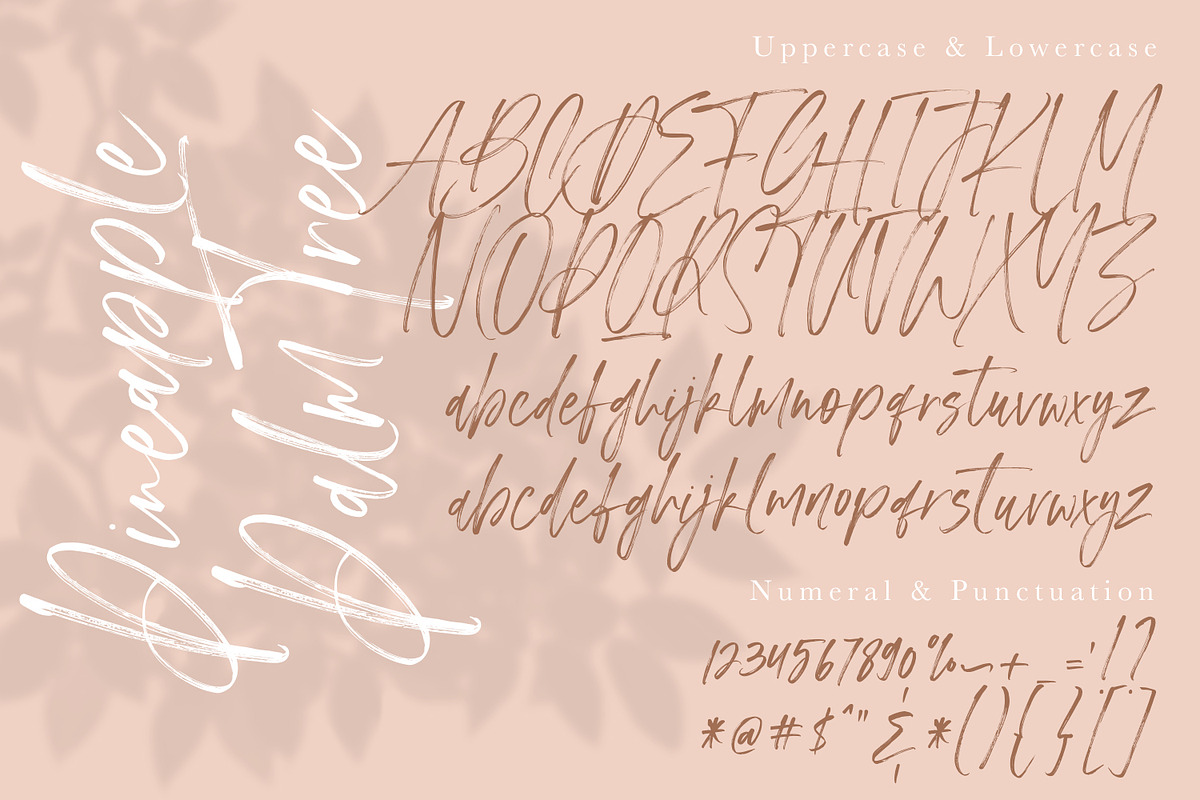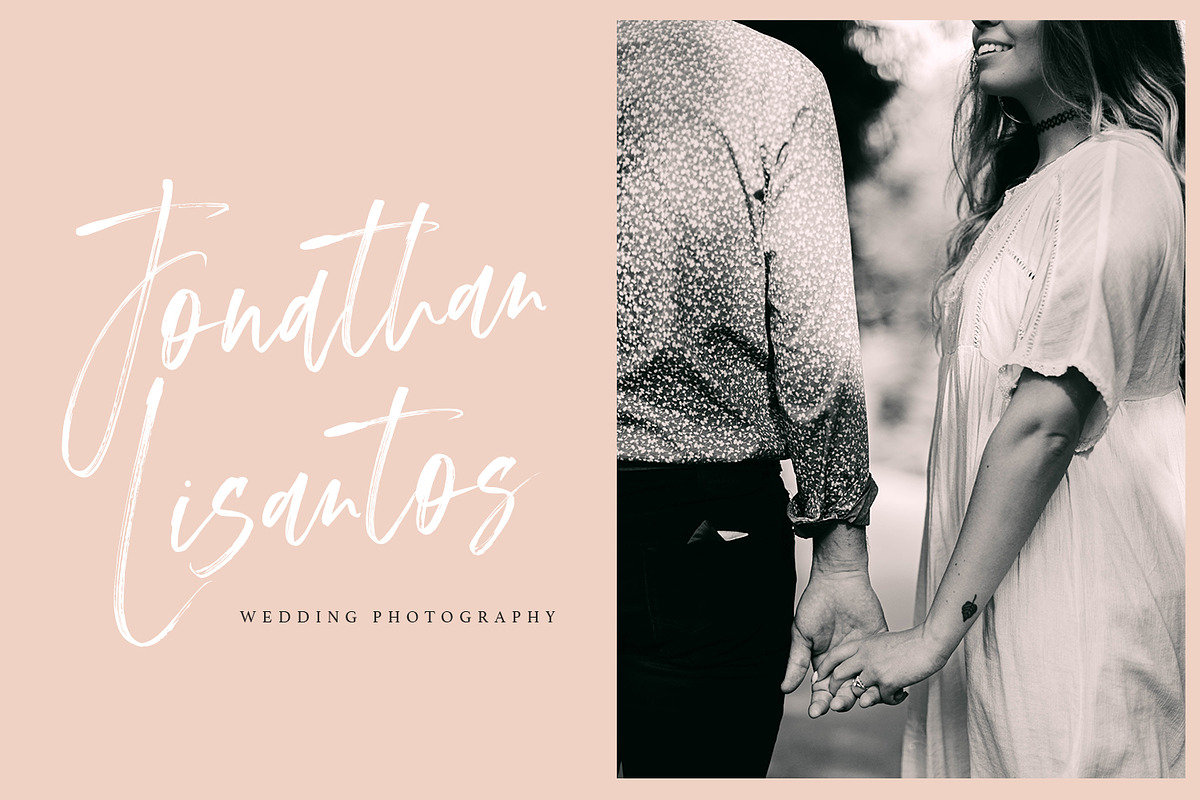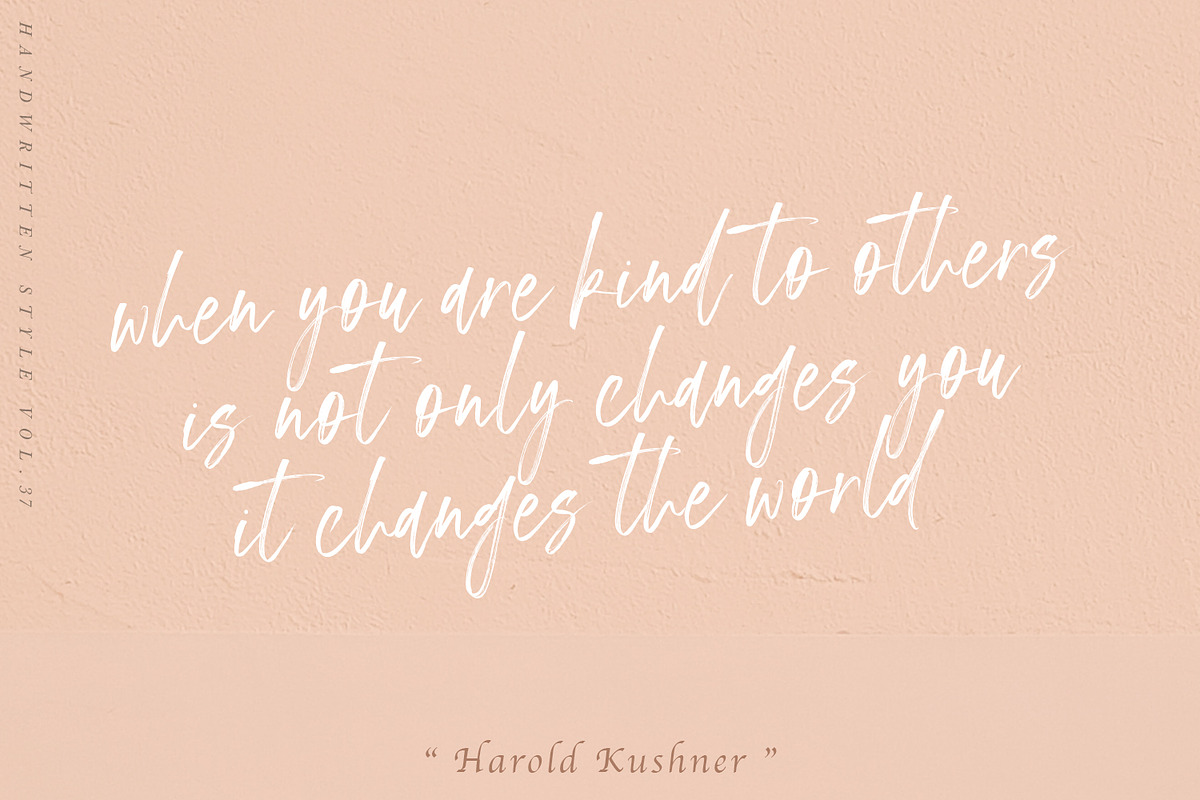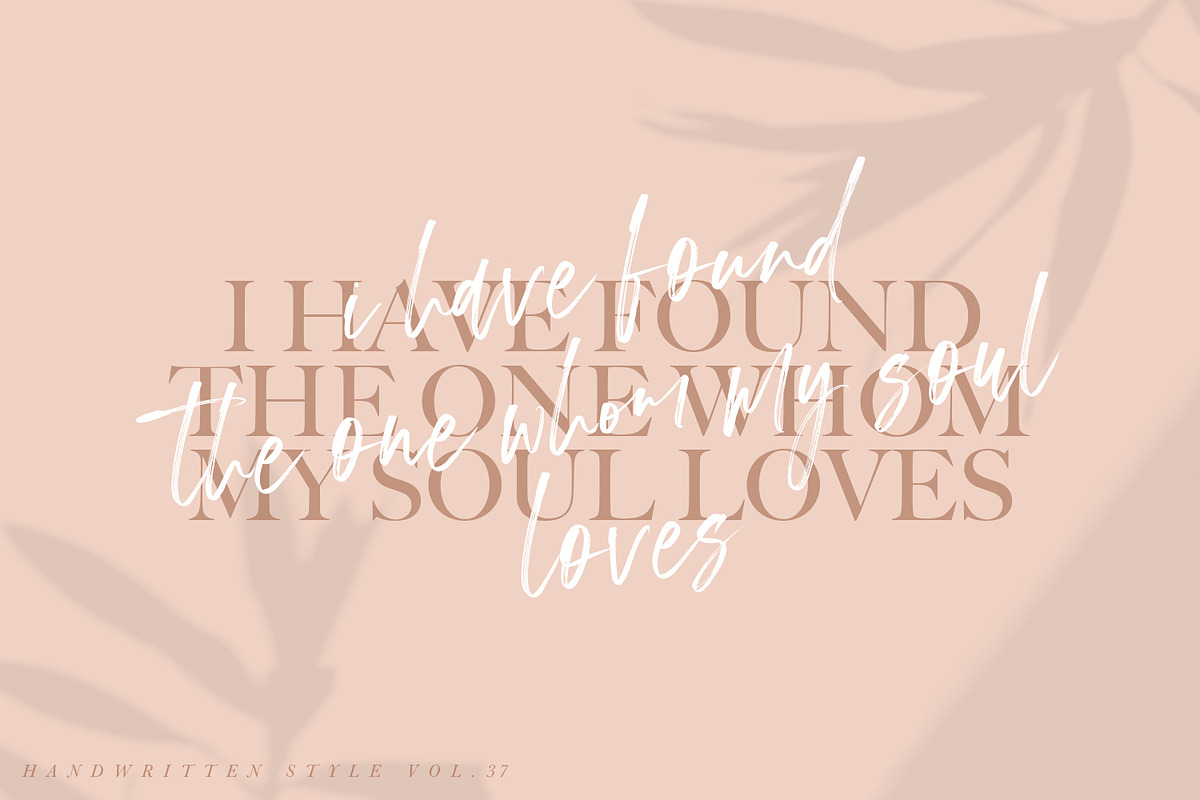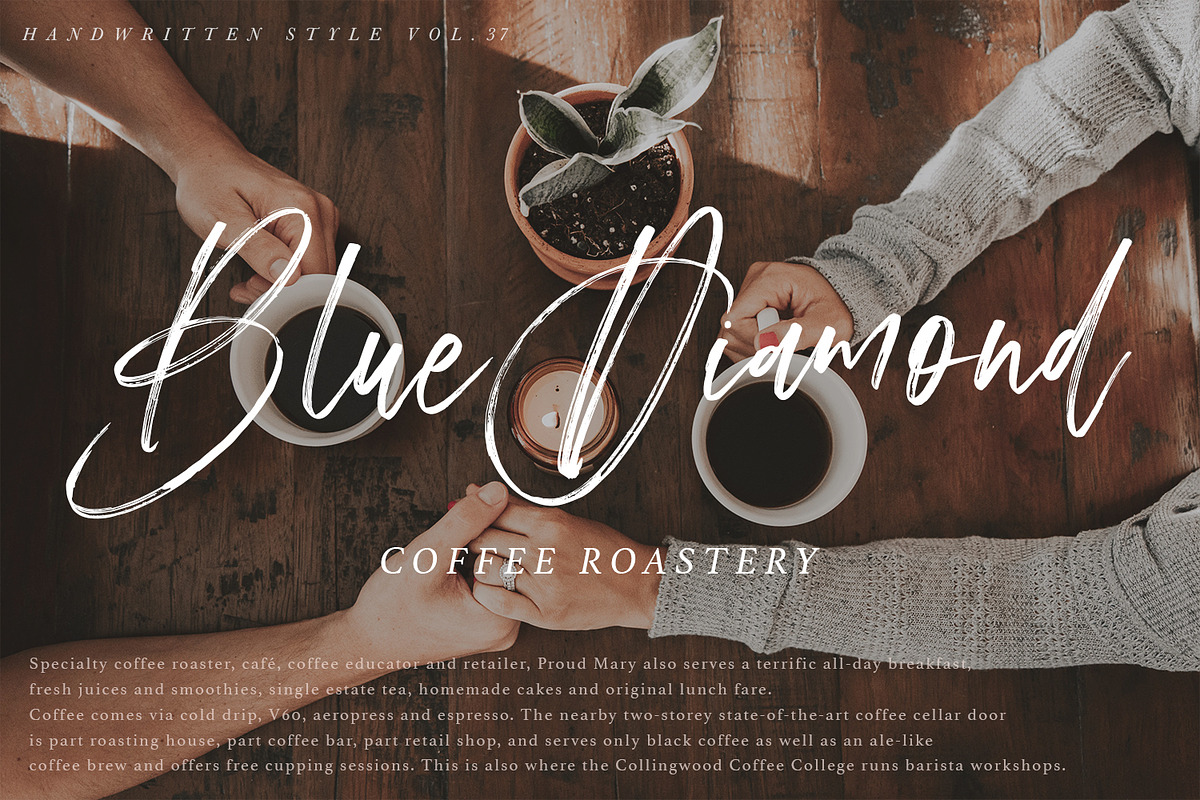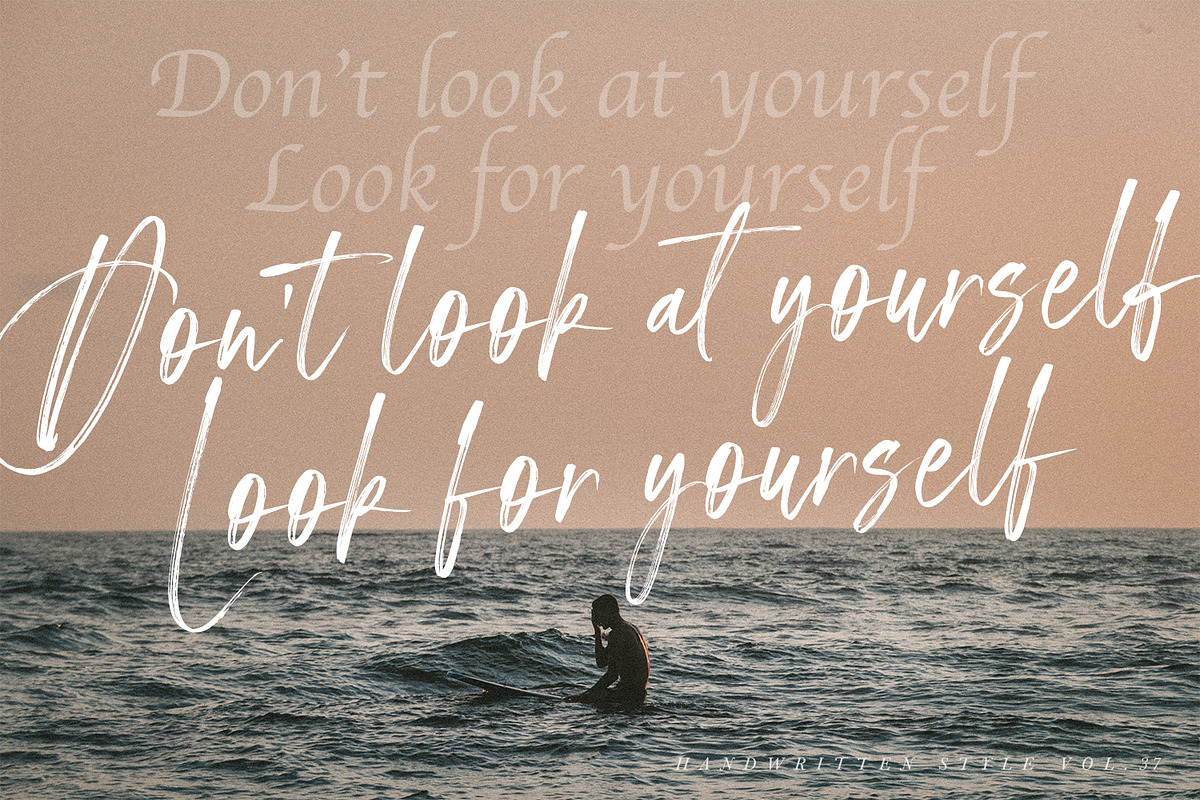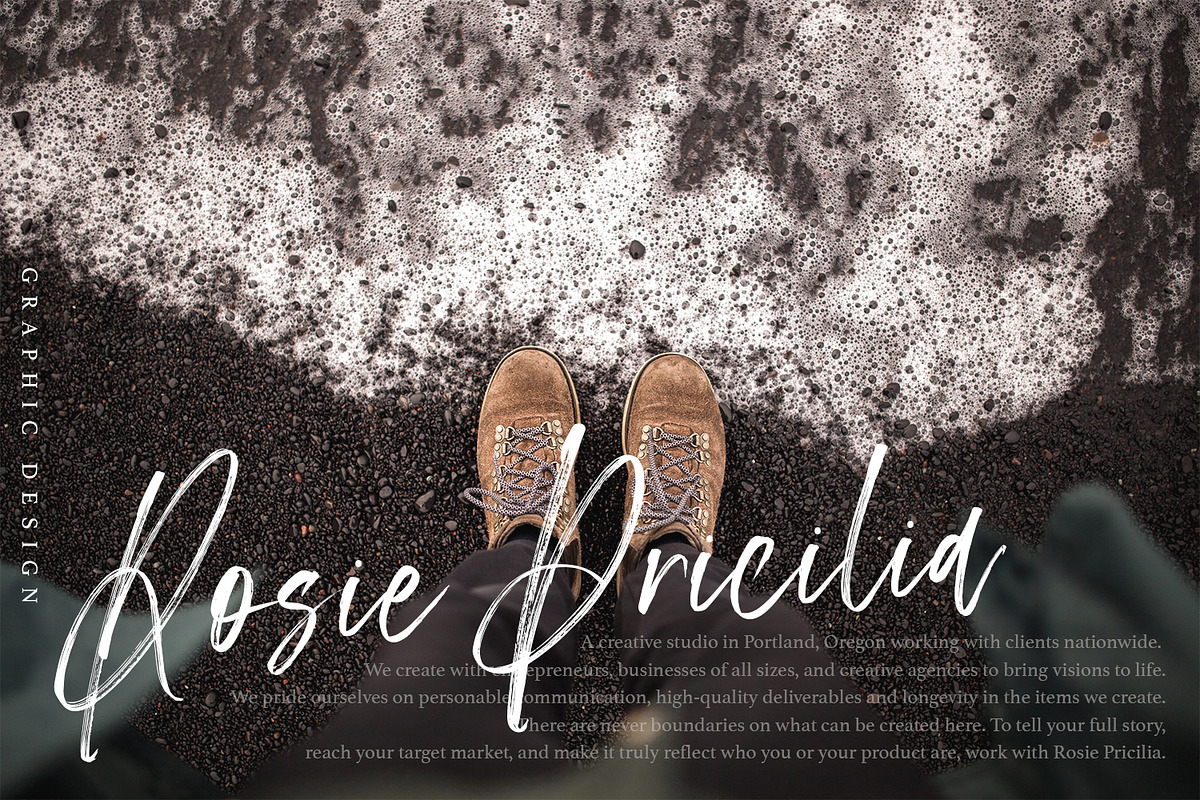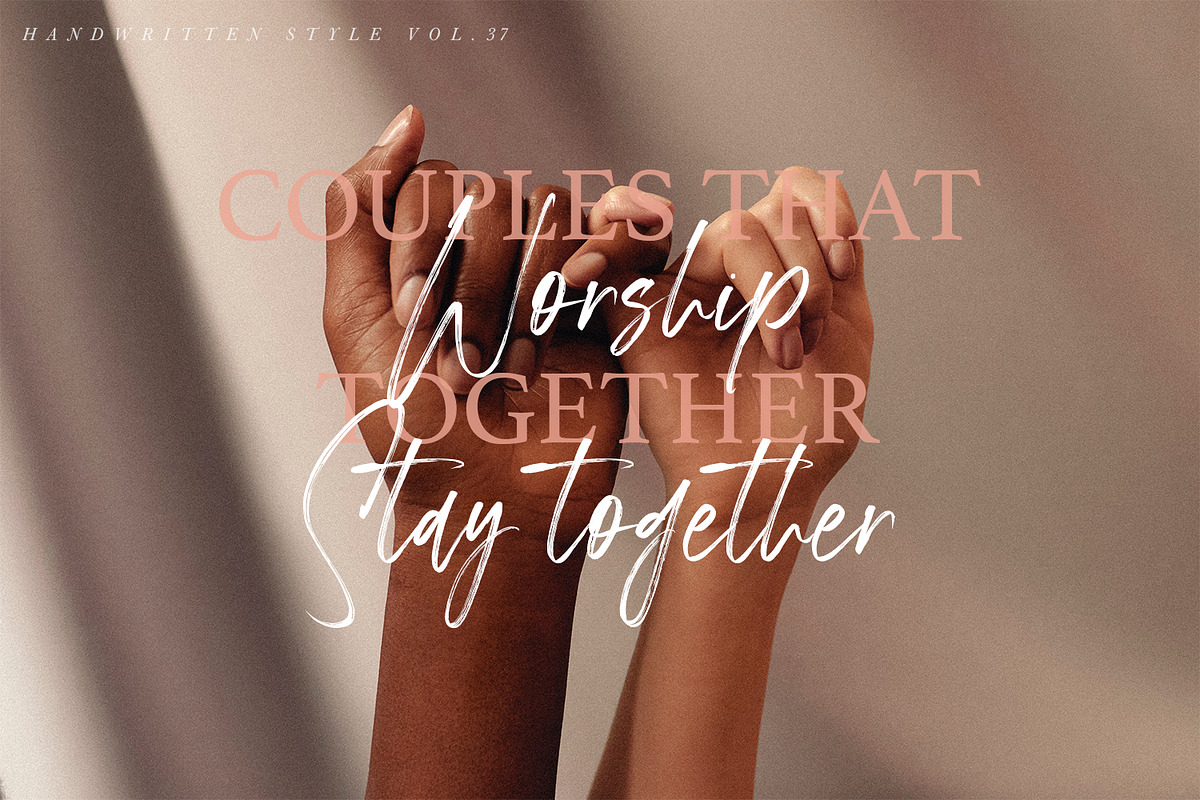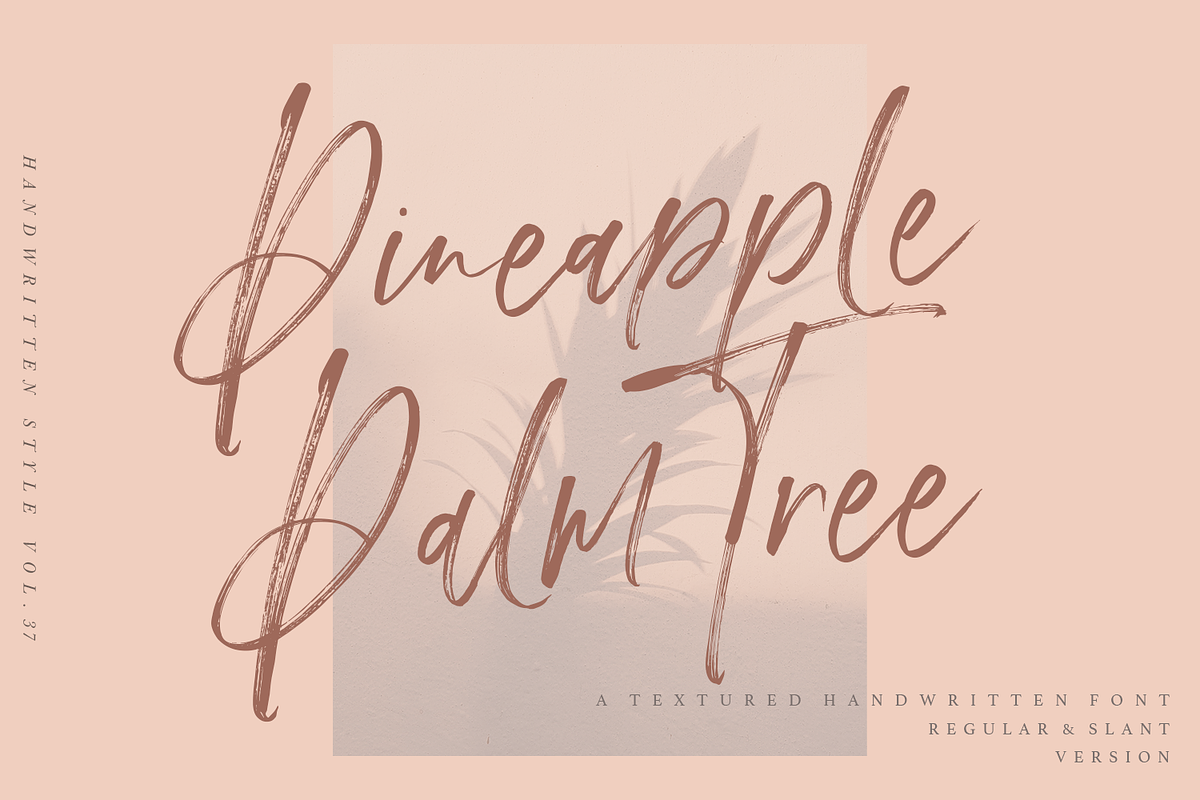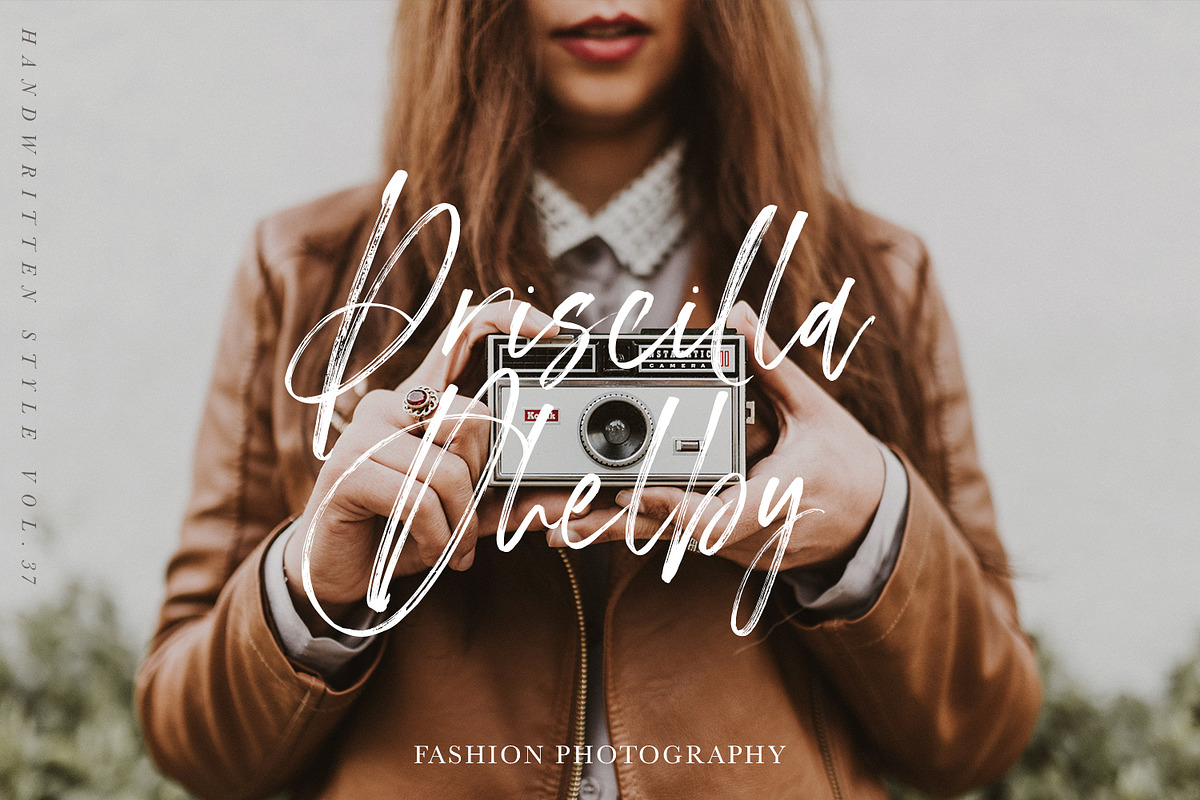
Pineapple Palm Tree - Handwritten...
Hi everyone, I would like to introduce the Pineapple Palm Tree A Handwritten font with textured characters. I made the Pineapple Palm Tree by hand using a brush on rough paper, for a strong, consistent texture.
The Pineapple Palm Tree has several Ligature and Slant versions, to change your writing style to make it appear slanted and stronger. Pineapple Palm Tree can be used for a variety of projects such as stationery invitations, social media, logos, weddings, branding, graphic design with added swashes. and can be combined with a variety of serif fonts to enhance the project you want to work on.